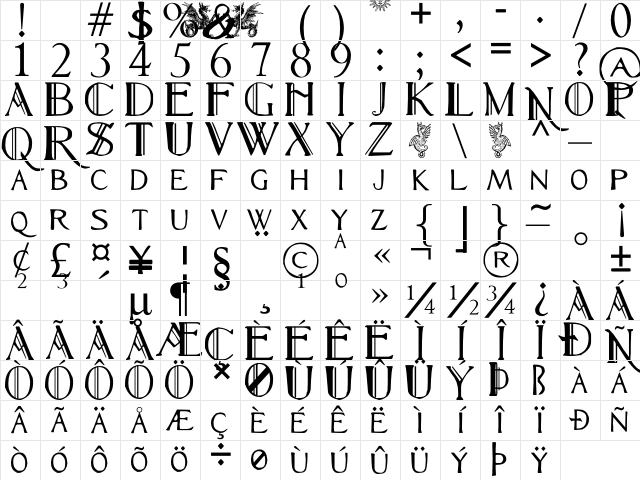
Renny Hybrid Regular Free Font
Renny Hybrid Regular
Designer: Bill Roach
Design Context for Renny Hybrid
Renny Hybrid is a composed and adaptable typeface that performs quietly and consistently across a wide range of design contexts.